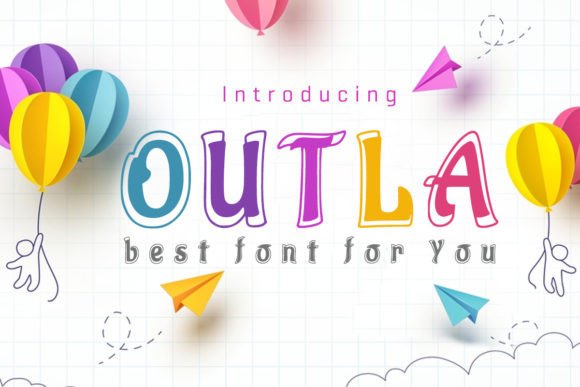
Are you ready to revolutionize your designs and leave a lasting impression? Behold, Outla Font, the ultimate display typeface that will ignite your creativity like never before!
Outla isn't just a font; it's an artistic masterpiece, meticulously crafted with a playful irregularity that dances across your screen. Its quirky baseline adds a touch of whimsy, making it perfect for injecting personality into any project.
Step into the world of modern aesthetics with Outla. Whether you're a seasoned designer or just starting your journey, this font is your gateway to creating captivating visuals that will turn heads. Its versatility knows no bounds, empowering you to transform ordinary text into extraordinary works of art.
Imagine your social media posts exploding with vibrant and eye-catching graphics, thanks to Outla's captivating presence. Craft stunning logos that command attention and leave a lasting mark on your audience. Elevate your website designs with headings that dance off the page, captivating visitors and guiding them through an unforgettable experience.
But it doesn't stop there. Outla is the perfect companion for creating irresistible marketing materials that will leave a lasting impression. Its unique character will make your brochures, flyers, and posters stand out from the crowd, ensuring your message reaches its target audience with maximum impact.
With Outla at your disposal, you'll unlock a world of creative possibilities. Its ability to blend seamlessly with other fonts makes it a harmonious addition to any design ensemble. Experiment with layering, contrasting, and combining Outla with different fonts to achieve captivating effects that will make your projects shine.
Don't settle for ordinary fonts that blend into the background. Embrace the extraordinary with Outla and embark on a typographic adventure that will transform your designs into captivating works of art. Download Outla today and unleash the limitless potential of your imagination!